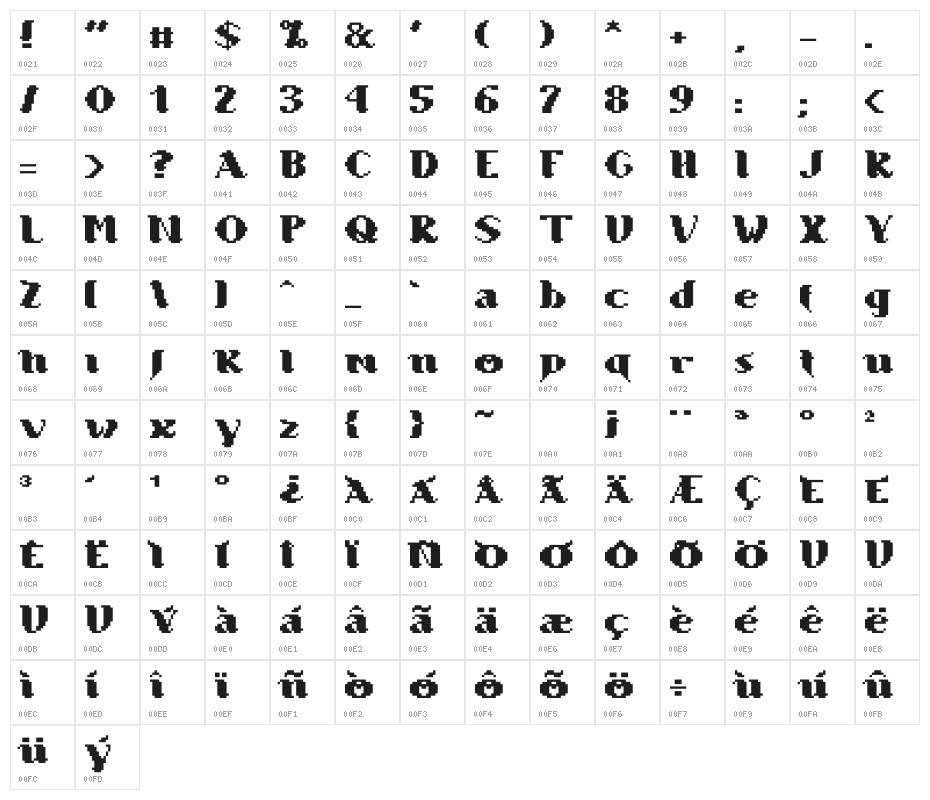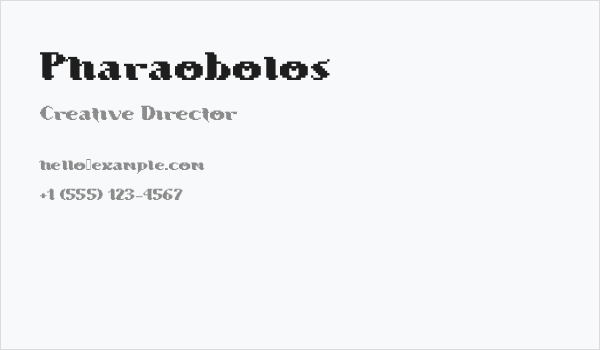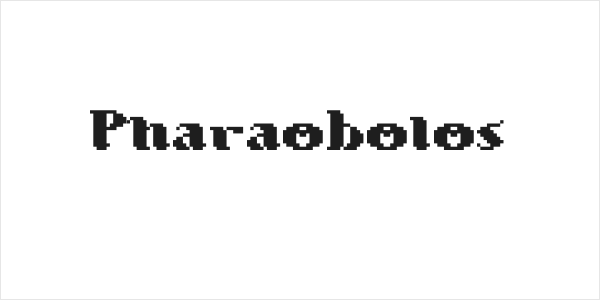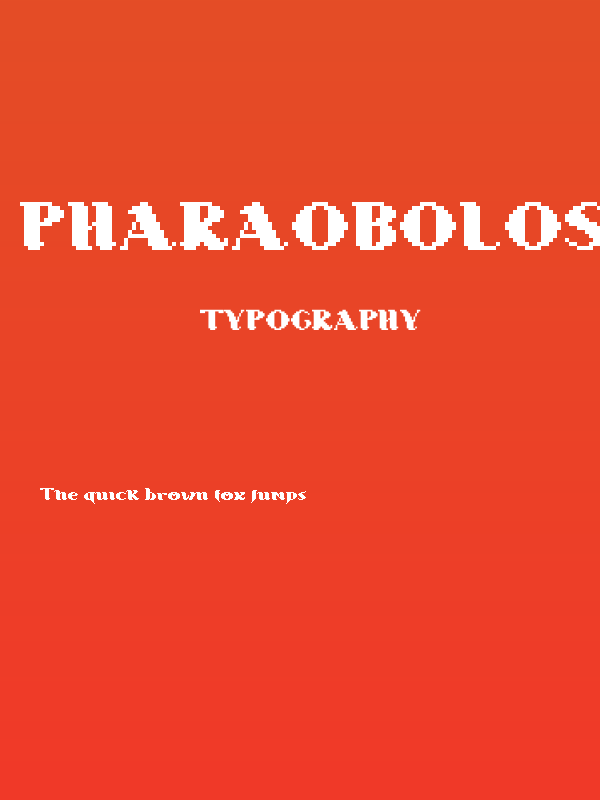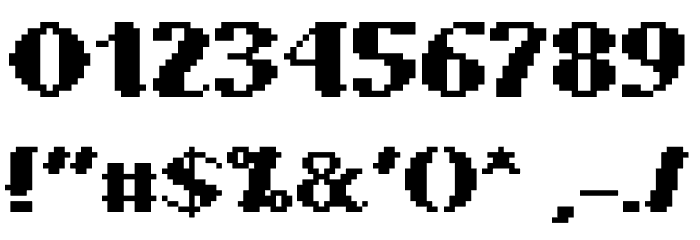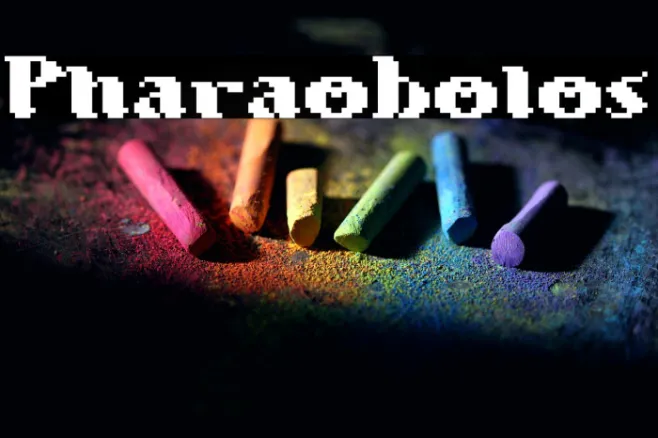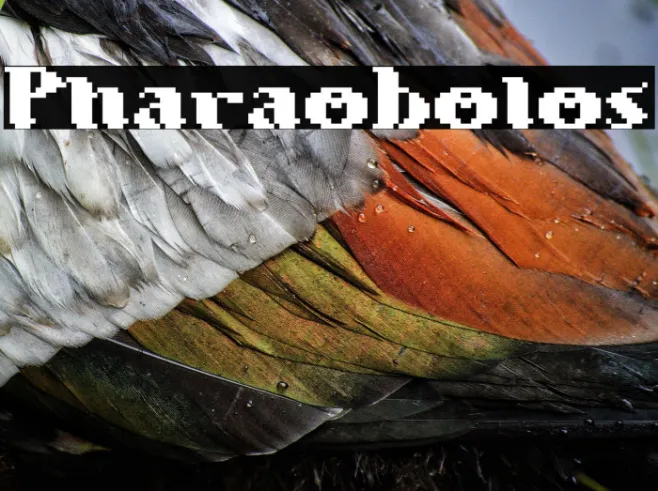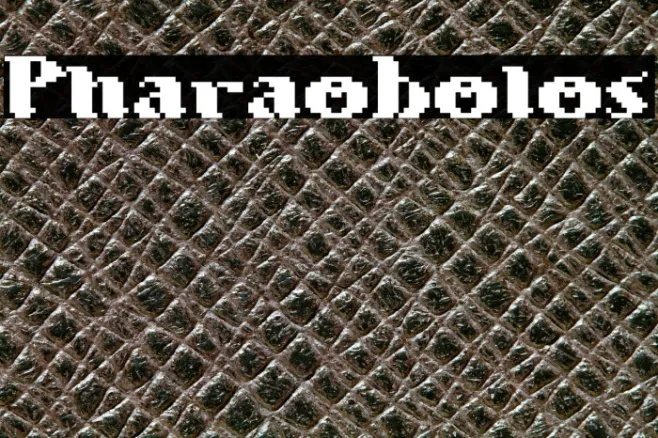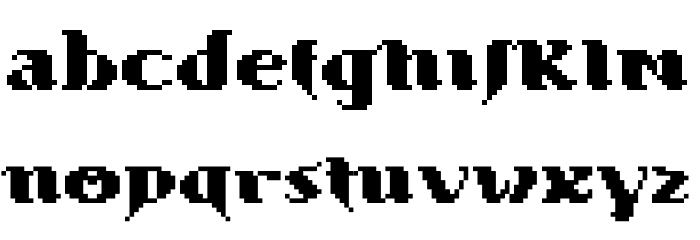
Pharaobolos Font
Pharaobolos Description
This font features a bold and striking design with a distinct medieval or gothic influence. The characters are heavily stylized with sharp, angular edges and a strong presence. The uppercase letters are particularly commanding, with a uniform height and width that create a cohesive look. The lowercase letters maintain the same stylistic elements, providing a consistent appearance across the board. Numbers and special characters are equally bold, ensuring readability while maintaining the font's unique aesthetic. This font is ideal for projects that require a dramatic and eye-catching typeface.
| Overall Style | Gothic, Decorative |
| Proposed Projects | Perfect for posters, book covers, video game titles, and branding that requires a dramatic flair. |